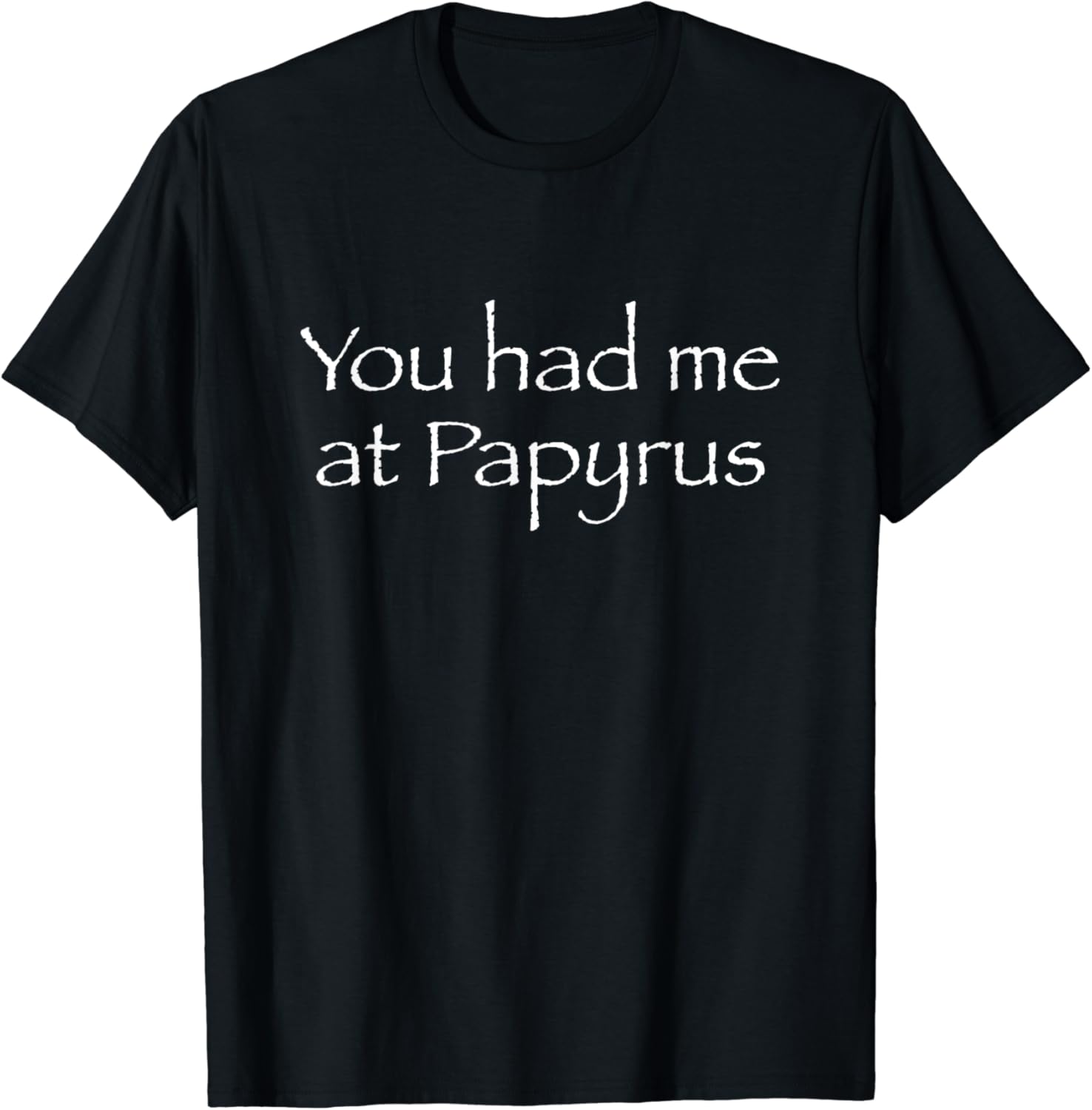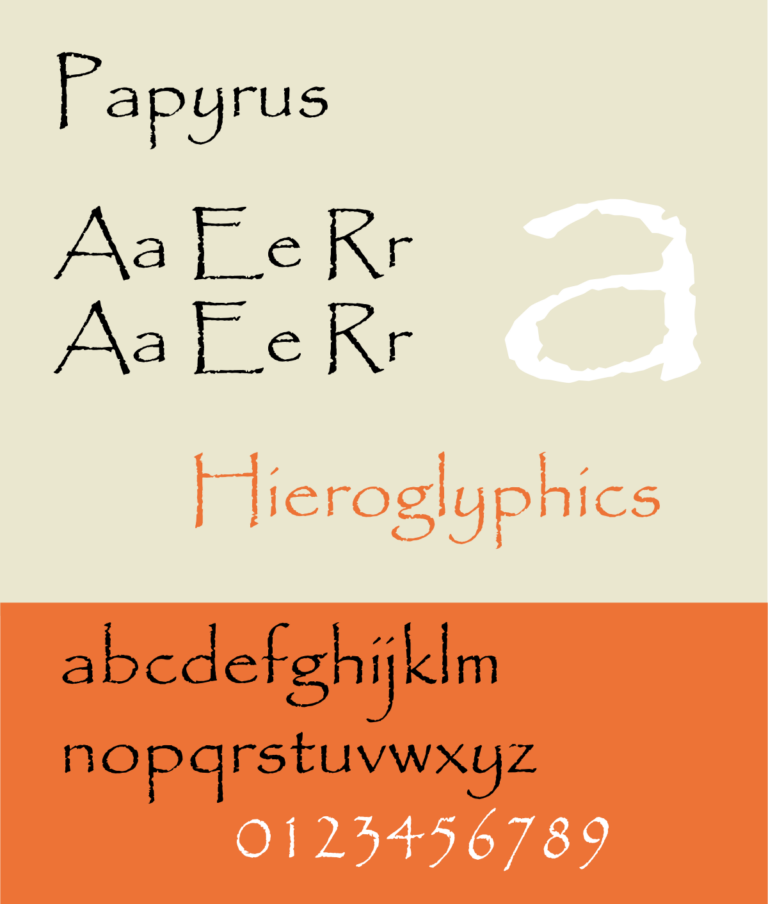
Papyrus Font Hate . And while there’s no shortage of blogs and online polls dedicated on this subject, no. But where did it come from? Why people hate the papyrus font. Well, in a recent interview with cbs news, the creator of papyrus, chris costello, talked about the history of the. Papyrus has been called “the other most hated font in the world” (after comic sans, of course). There’s no clear reason why designers and typographers hate the typeface. Because of the overuse of both fonts, you should generally avoid both papyrus and comic sans altogether. This comparison was hilariously brought to light on snl and now evidence has come out to prove that avatar’s widely mocked originalfont is basically a slightly altered papyrus font. It turns out the vilified. After it was released, avatar was repeatedly mocked for its use of the papyrus font, including in one famous snl sketch starring ryan gosling.
Because of the overuse of both fonts, you should generally avoid both papyrus and comic sans altogether. And while there’s no shortage of blogs and online polls dedicated on this subject, no. But where did it come from? Well, in a recent interview with cbs news, the creator of papyrus, chris costello, talked about the history of the. After it was released, avatar was repeatedly mocked for its use of the papyrus font, including in one famous snl sketch starring ryan gosling. This comparison was hilariously brought to light on snl and now evidence has come out to prove that avatar’s widely mocked originalfont is basically a slightly altered papyrus font. It turns out the vilified. Papyrus has been called “the other most hated font in the world” (after comic sans, of course). Why people hate the papyrus font. There’s no clear reason why designers and typographers hate the typeface.
Papyrus Font Hate Because of the overuse of both fonts, you should generally avoid both papyrus and comic sans altogether. After it was released, avatar was repeatedly mocked for its use of the papyrus font, including in one famous snl sketch starring ryan gosling. Papyrus has been called “the other most hated font in the world” (after comic sans, of course). Why people hate the papyrus font. And while there’s no shortage of blogs and online polls dedicated on this subject, no. But where did it come from? This comparison was hilariously brought to light on snl and now evidence has come out to prove that avatar’s widely mocked originalfont is basically a slightly altered papyrus font. Because of the overuse of both fonts, you should generally avoid both papyrus and comic sans altogether. There’s no clear reason why designers and typographers hate the typeface. It turns out the vilified. Well, in a recent interview with cbs news, the creator of papyrus, chris costello, talked about the history of the.
In Defense of Papyrus Avatar Uses the World's SecondMostHated Font Papyrus Font Hate Well, in a recent interview with cbs news, the creator of papyrus, chris costello, talked about the history of the. Papyrus has been called “the other most hated font in the world” (after comic sans, of course). It turns out the vilified. There’s no clear reason why designers and typographers hate the typeface. But where did it come from? And. Papyrus Font Hate.
Funny Papyrus Font Graphic Designer Gift Papyrus Meme Design Maglietta Papyrus Font Hate Why people hate the papyrus font. Because of the overuse of both fonts, you should generally avoid both papyrus and comic sans altogether. Papyrus has been called “the other most hated font in the world” (after comic sans, of course). Well, in a recent interview with cbs news, the creator of papyrus, chris costello, talked about the history of the.. Papyrus Font Hate.
Papyrus Font Google Docs Papyrus Font Hate There’s no clear reason why designers and typographers hate the typeface. Why people hate the papyrus font. After it was released, avatar was repeatedly mocked for its use of the papyrus font, including in one famous snl sketch starring ryan gosling. It turns out the vilified. This comparison was hilariously brought to light on snl and now evidence has come. Papyrus Font Hate.
1 Papyrus font Papyrus Font Hate It turns out the vilified. After it was released, avatar was repeatedly mocked for its use of the papyrus font, including in one famous snl sketch starring ryan gosling. Papyrus has been called “the other most hated font in the world” (after comic sans, of course). This comparison was hilariously brought to light on snl and now evidence has come. Papyrus Font Hate.
5 fonts we love to hate (but maybe shouldn't) Creative Bloq Papyrus Font Hate Well, in a recent interview with cbs news, the creator of papyrus, chris costello, talked about the history of the. There’s no clear reason why designers and typographers hate the typeface. Because of the overuse of both fonts, you should generally avoid both papyrus and comic sans altogether. And while there’s no shortage of blogs and online polls dedicated on. Papyrus Font Hate.
Worst Fonts Ever 10 Fonts That Designers Love To Hate CGfrog Papyrus Font Hate Why people hate the papyrus font. Papyrus has been called “the other most hated font in the world” (after comic sans, of course). Well, in a recent interview with cbs news, the creator of papyrus, chris costello, talked about the history of the. After it was released, avatar was repeatedly mocked for its use of the papyrus font, including in. Papyrus Font Hate.
Papyrus The Other Most Hated Font in the World YouTube Papyrus Font Hate There’s no clear reason why designers and typographers hate the typeface. Why people hate the papyrus font. This comparison was hilariously brought to light on snl and now evidence has come out to prove that avatar’s widely mocked originalfont is basically a slightly altered papyrus font. It turns out the vilified. Papyrus has been called “the other most hated font. Papyrus Font Hate.
Papyrus Font Free Download Papyrus Font Hate But where did it come from? Why people hate the papyrus font. There’s no clear reason why designers and typographers hate the typeface. Well, in a recent interview with cbs news, the creator of papyrus, chris costello, talked about the history of the. This comparison was hilariously brought to light on snl and now evidence has come out to prove. Papyrus Font Hate.
Papyrus Font Hate Papyrus has been called “the other most hated font in the world” (after comic sans, of course). Because of the overuse of both fonts, you should generally avoid both papyrus and comic sans altogether. Why people hate the papyrus font. There’s no clear reason why designers and typographers hate the typeface. This comparison was hilariously brought to light on snl. Papyrus Font Hate.